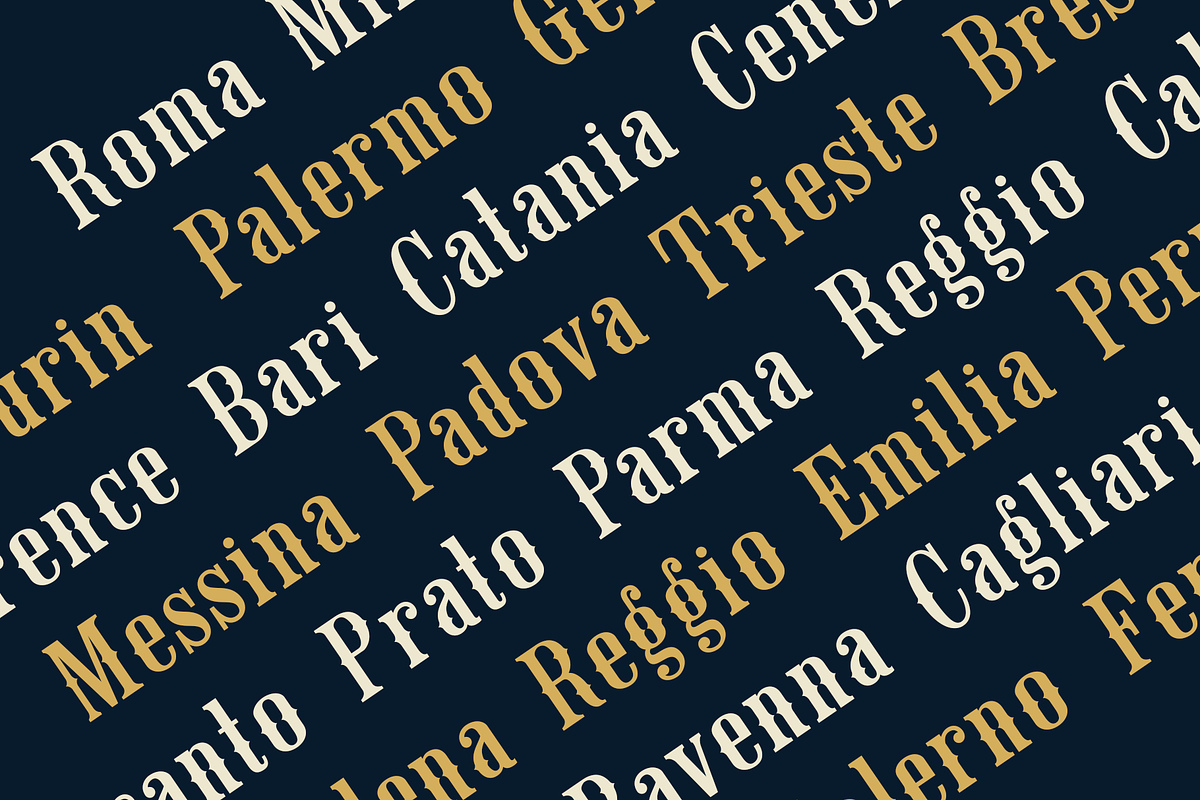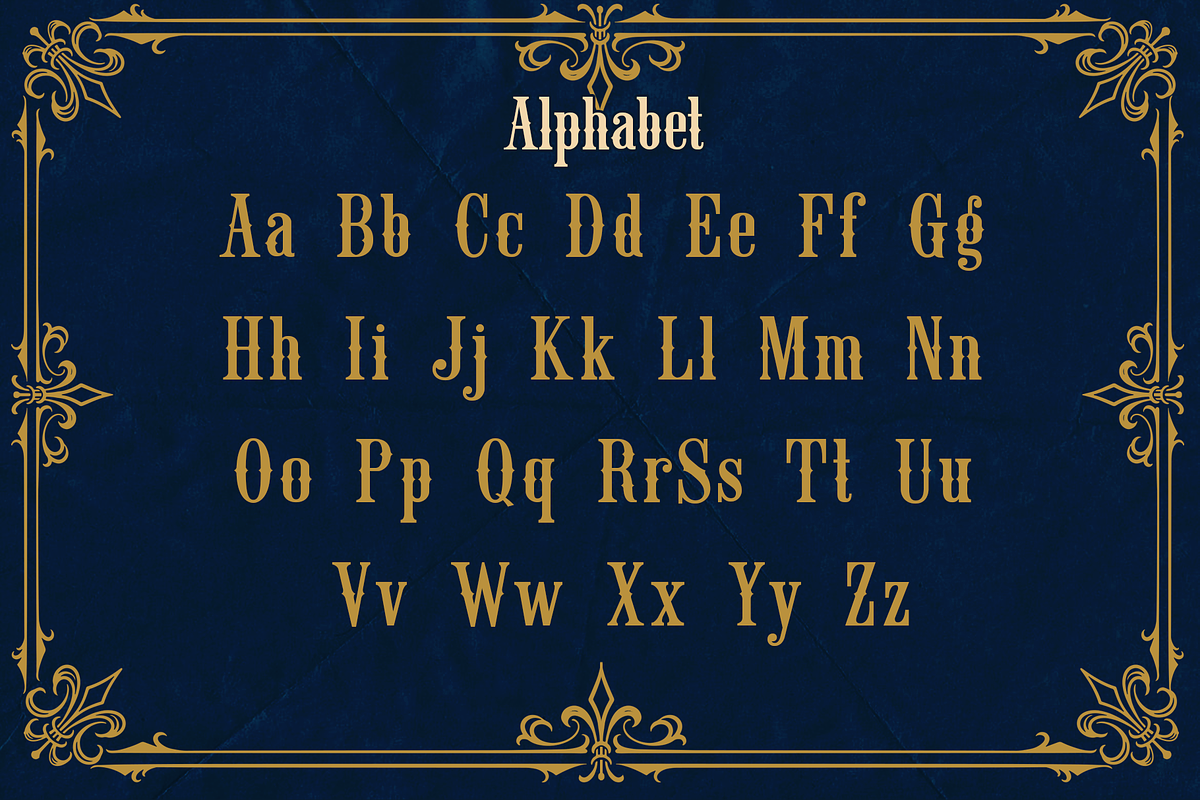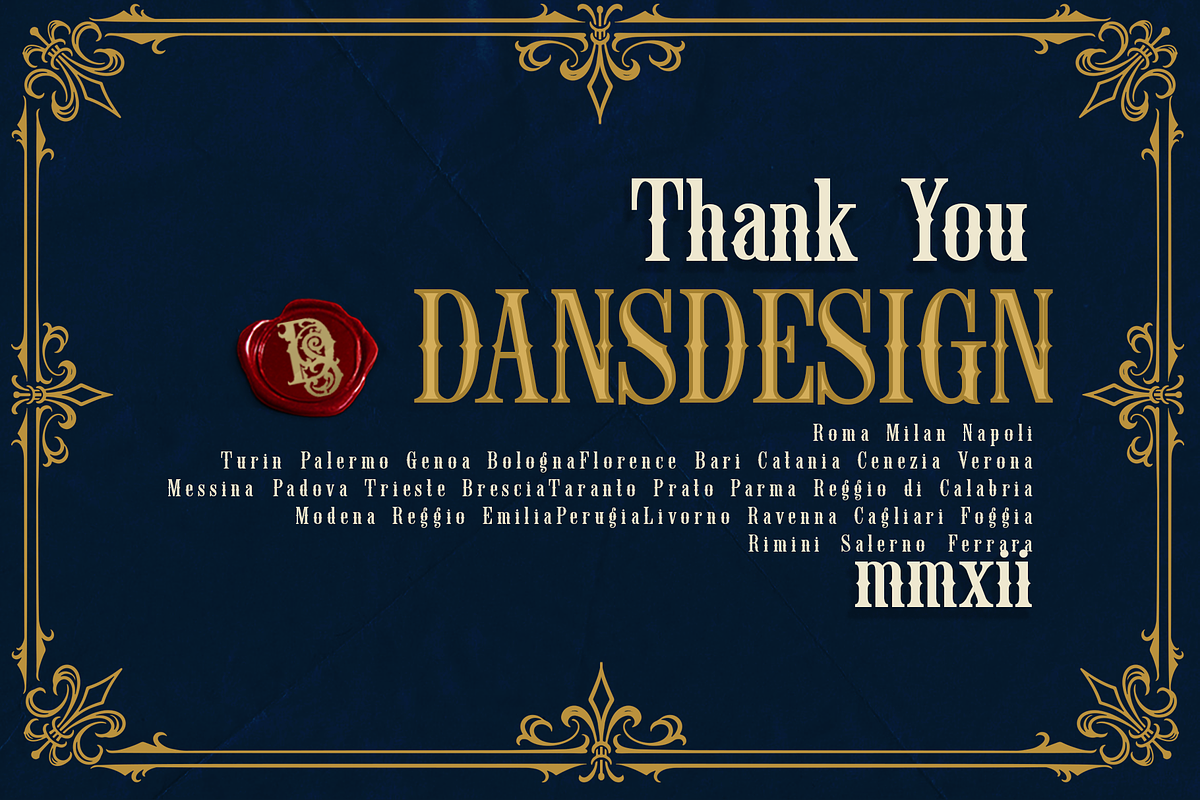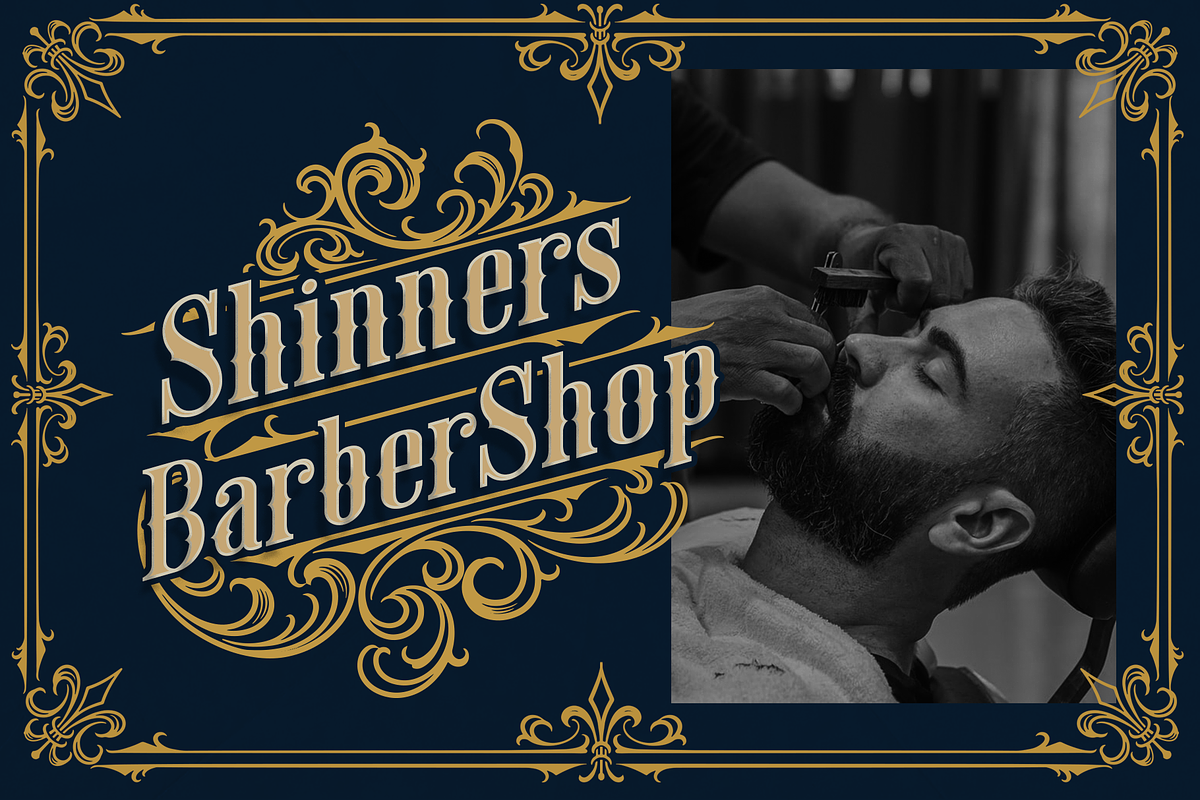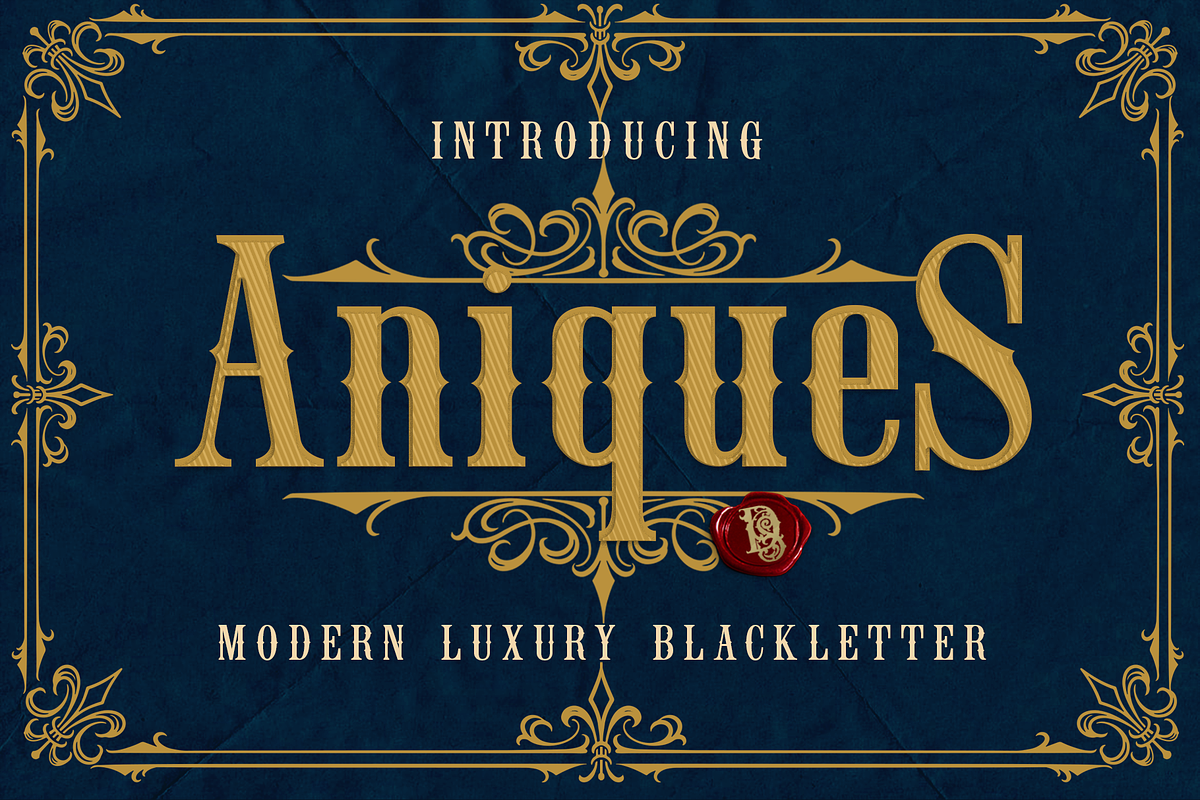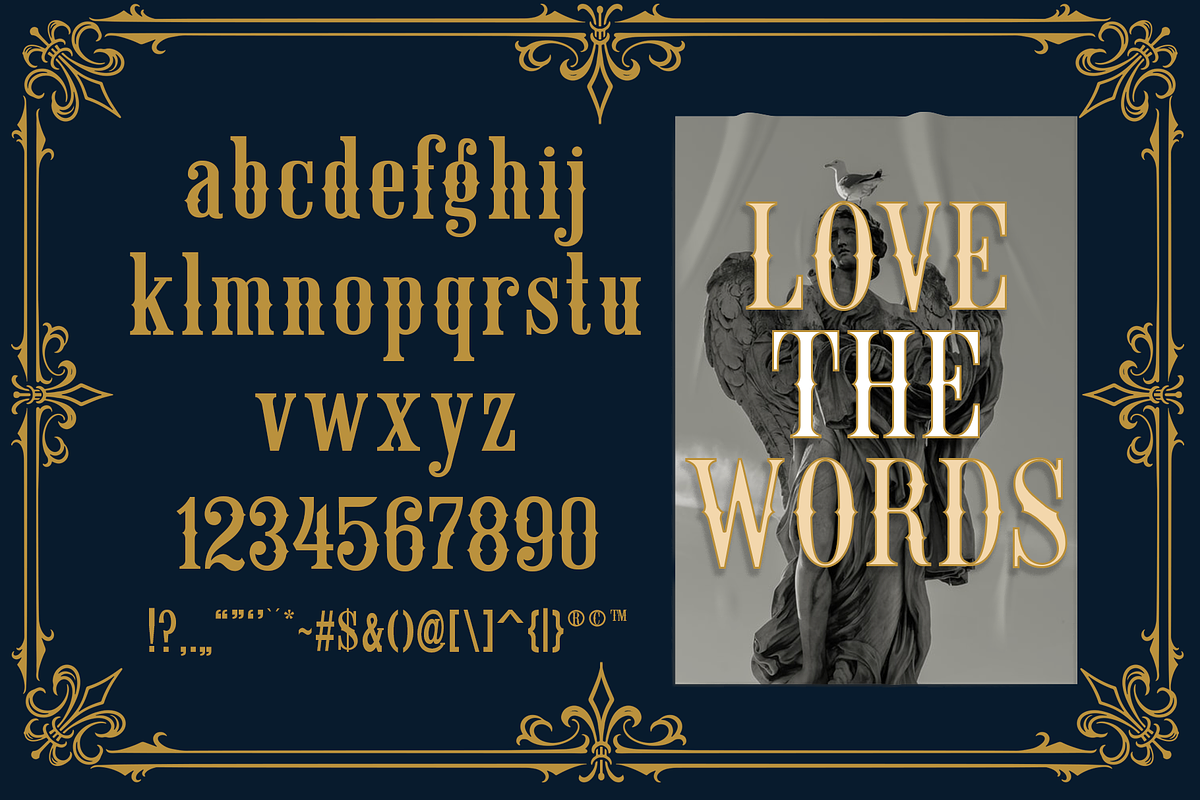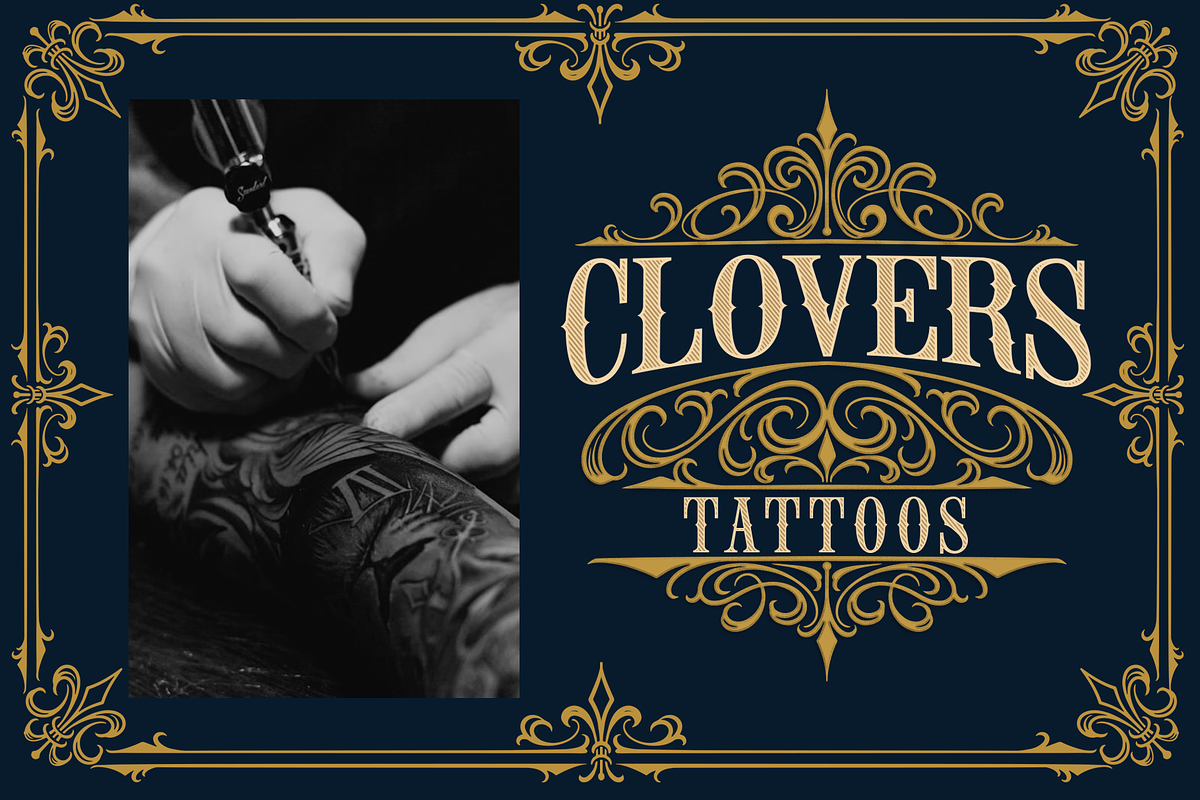
Aniques Blacklleter
Aniques is a victorian styled and distinct blackletter font. Fall for its ravishing style and use it to create gorgeous wedding invitations, beautiful stationary art, eye-catching social media posts, and much more!